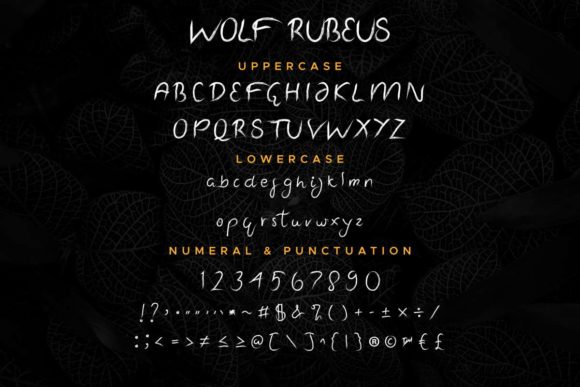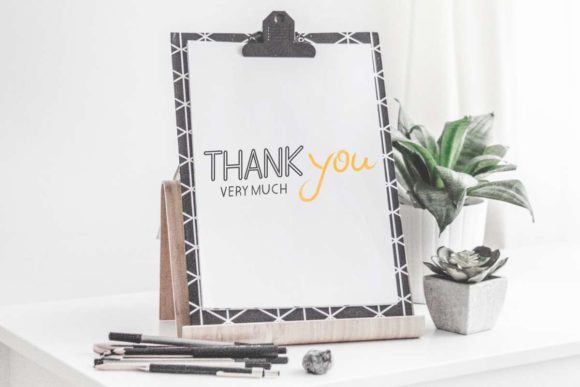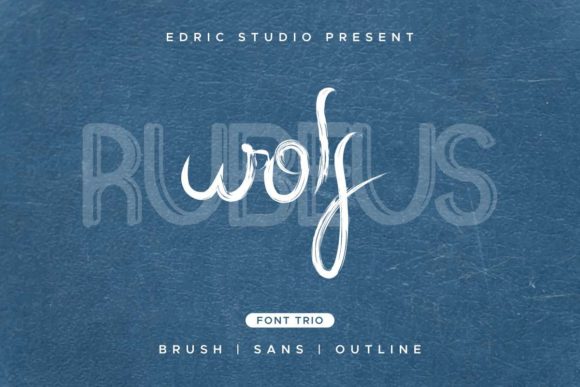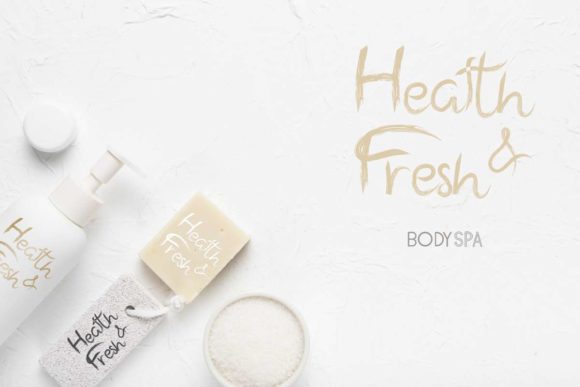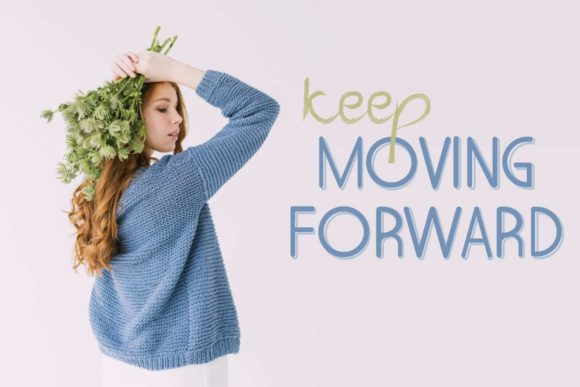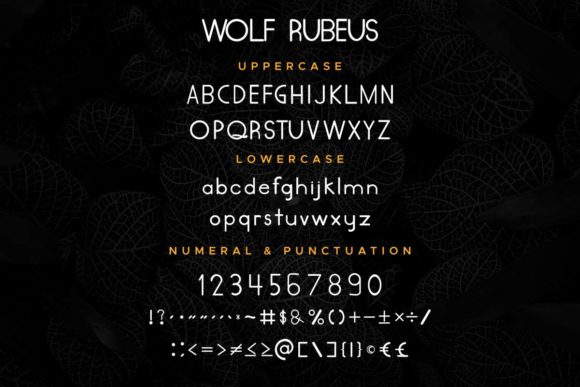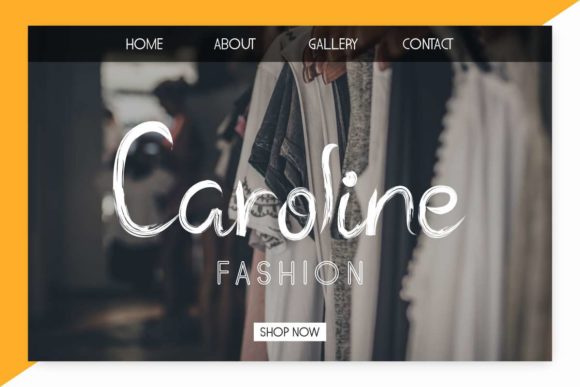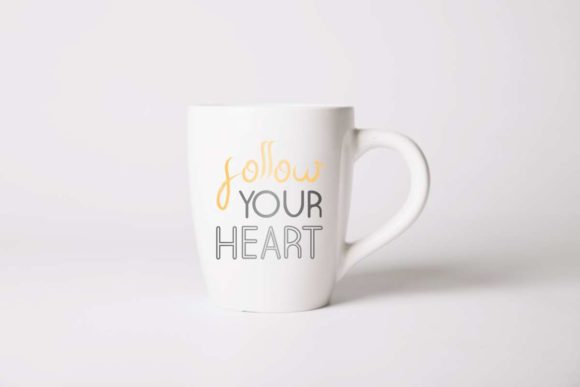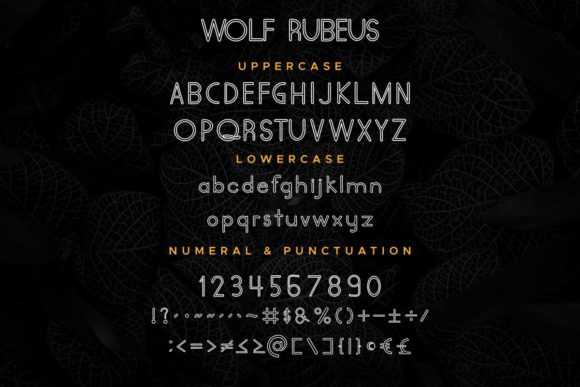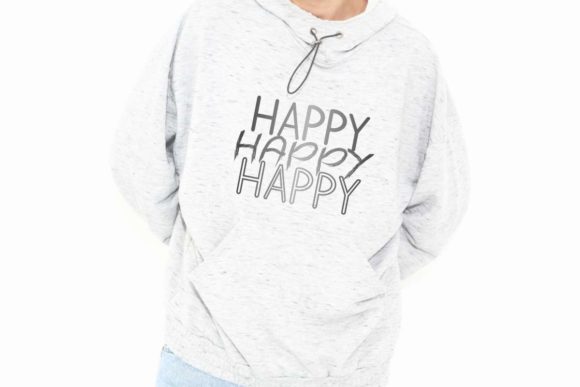
Wolf Rubeus Font
About Wolf Rubeus Font
Wolf Rubeus is a magical script font carefully created with a touch of elegance. It comes in 3 unique font styles, sans, outline and script. Get inspired by its authentic feel and use it to create gorgeous wedding invitations, beautiful stationary art, eye-catching social media posts, and cute greeting cards.